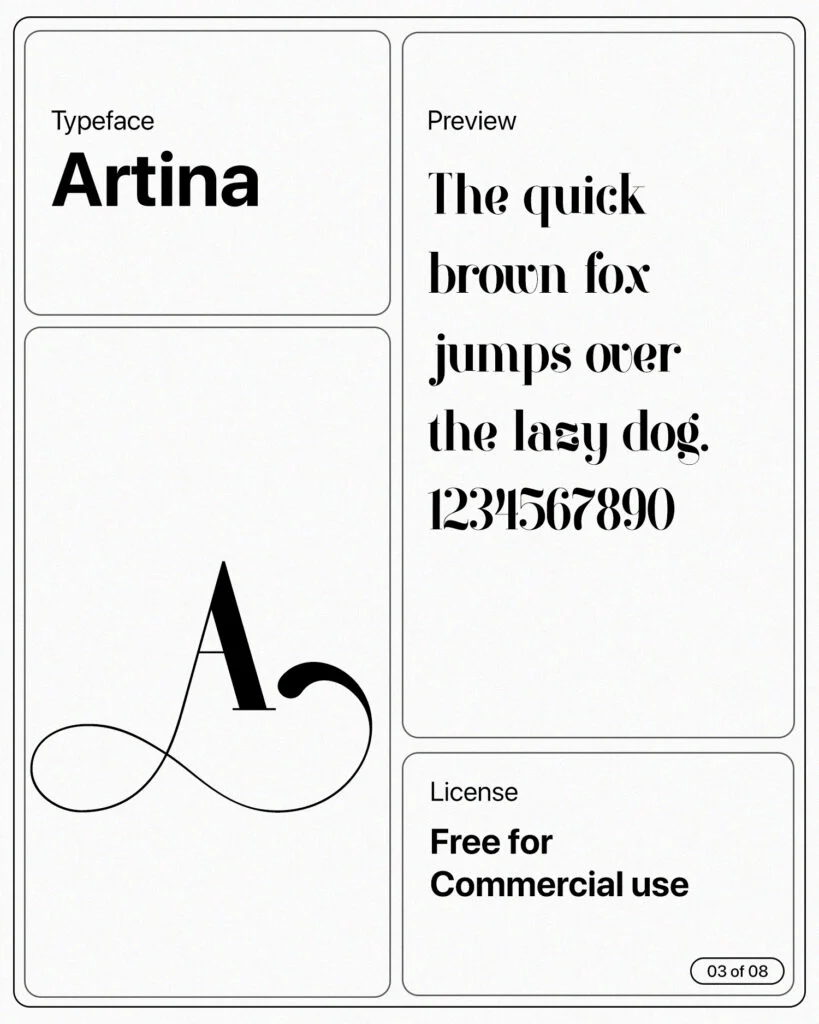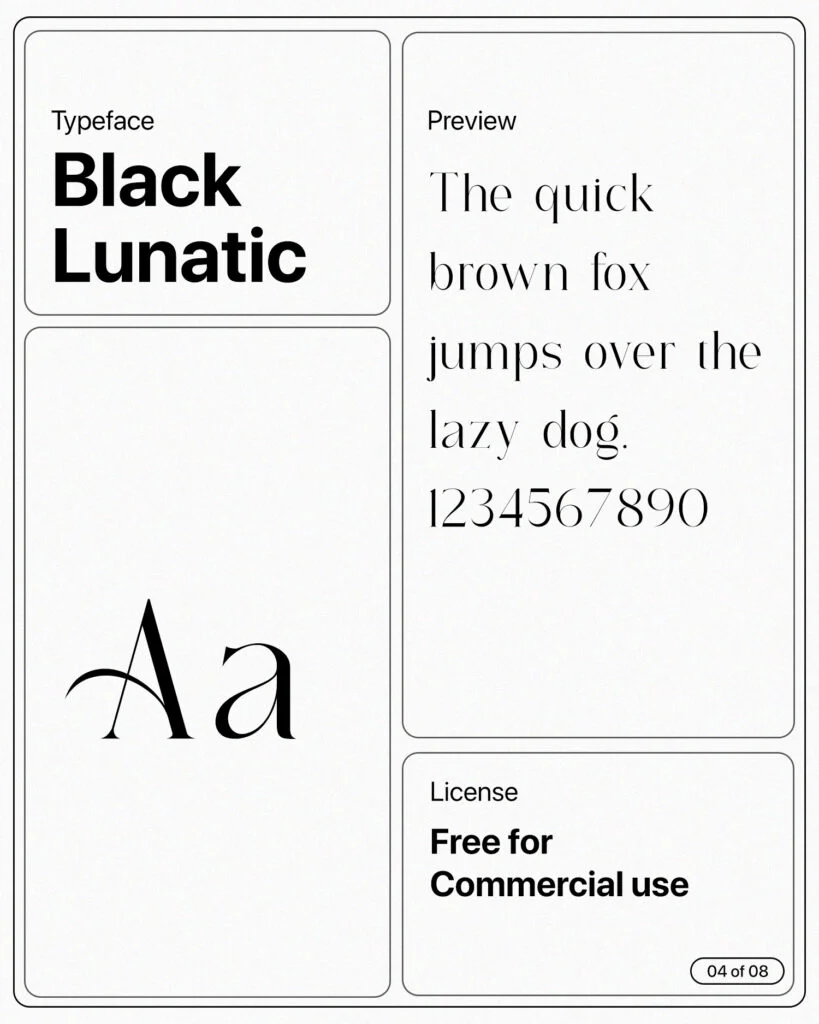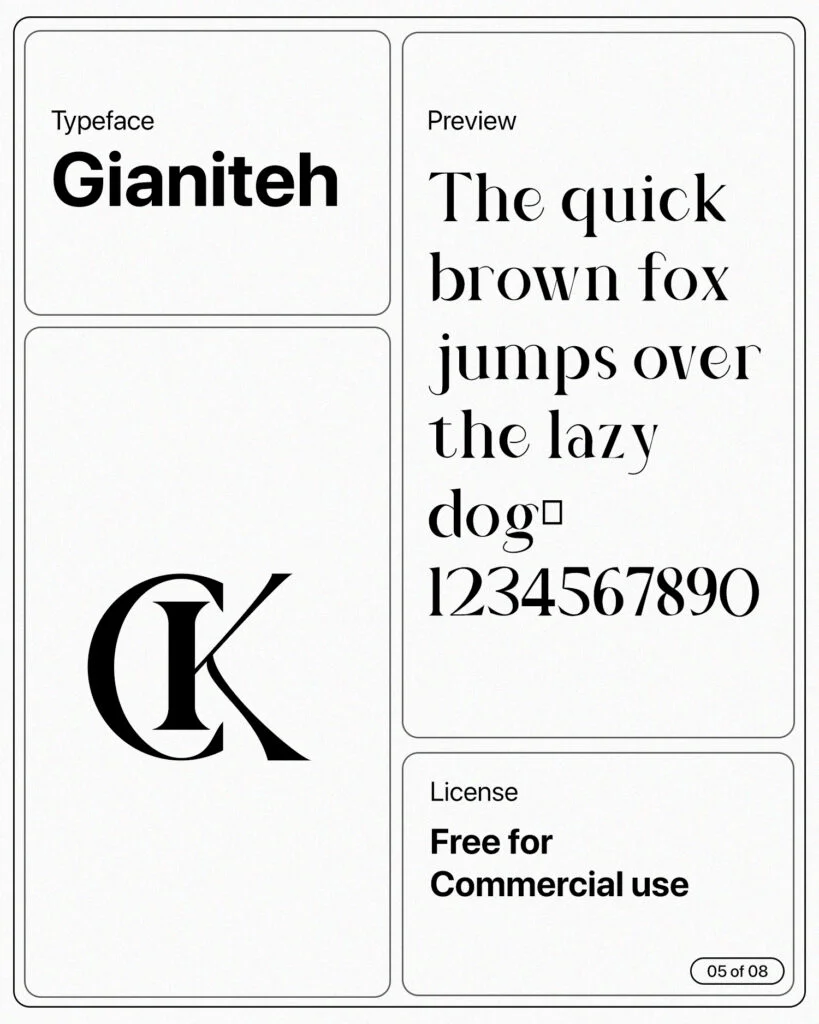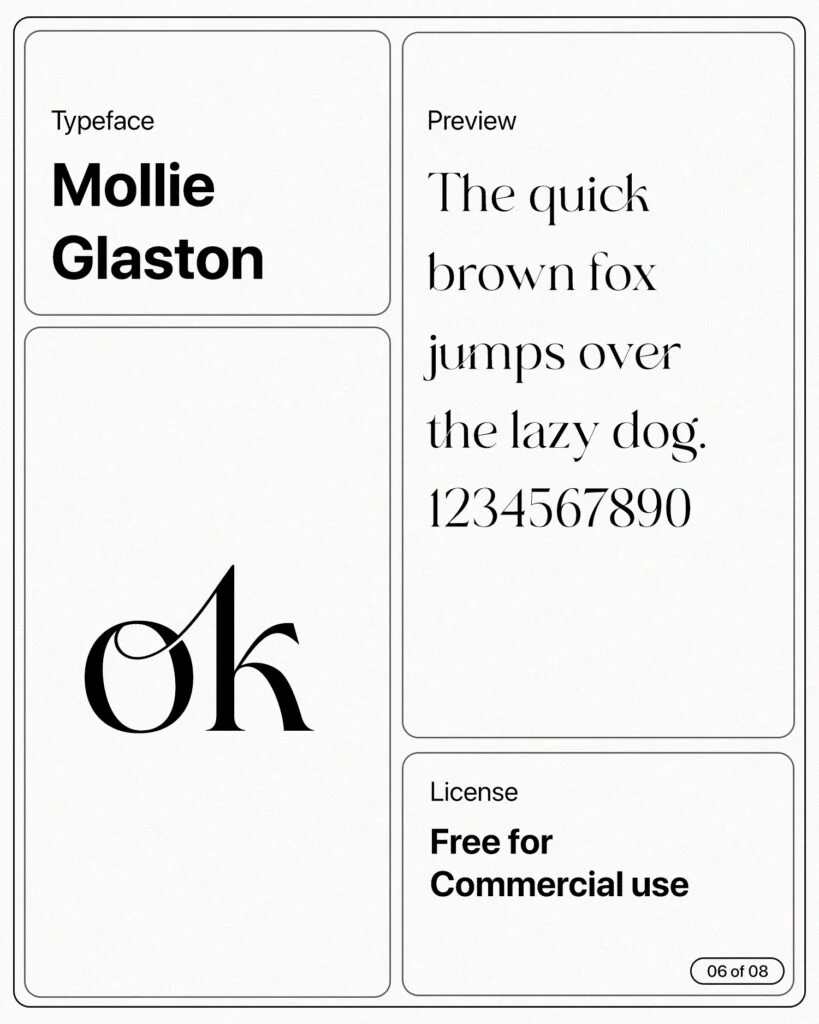
6 Best Wedding Fonts for Graphic Designer, Invitations and Social Media
Wedding fonts add a touch of nostalgia and romance to any graphic design project. Whether it’s classic calligraphy or modern script, these fonts make your wedding designs one of a kind.
From formal to playful, you can find the perfect font for any occasion. Let your creativity blossom with wedding fonts. All fonts are curated by Nitin
Aluniea
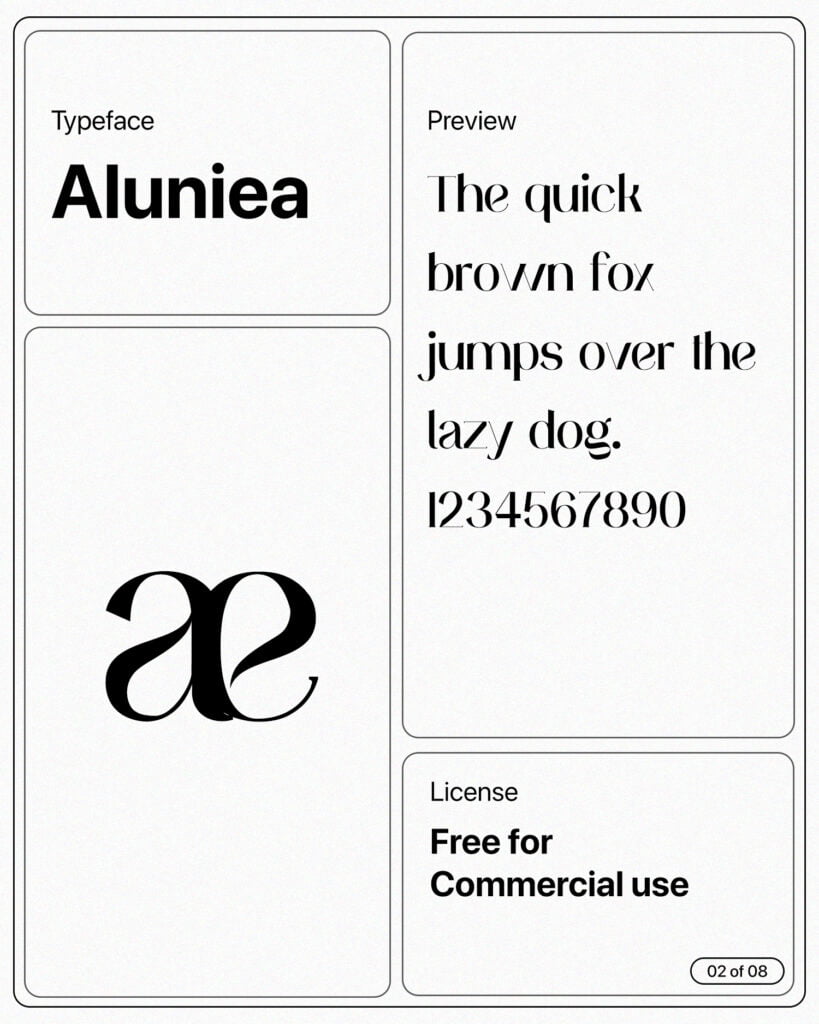
Artina
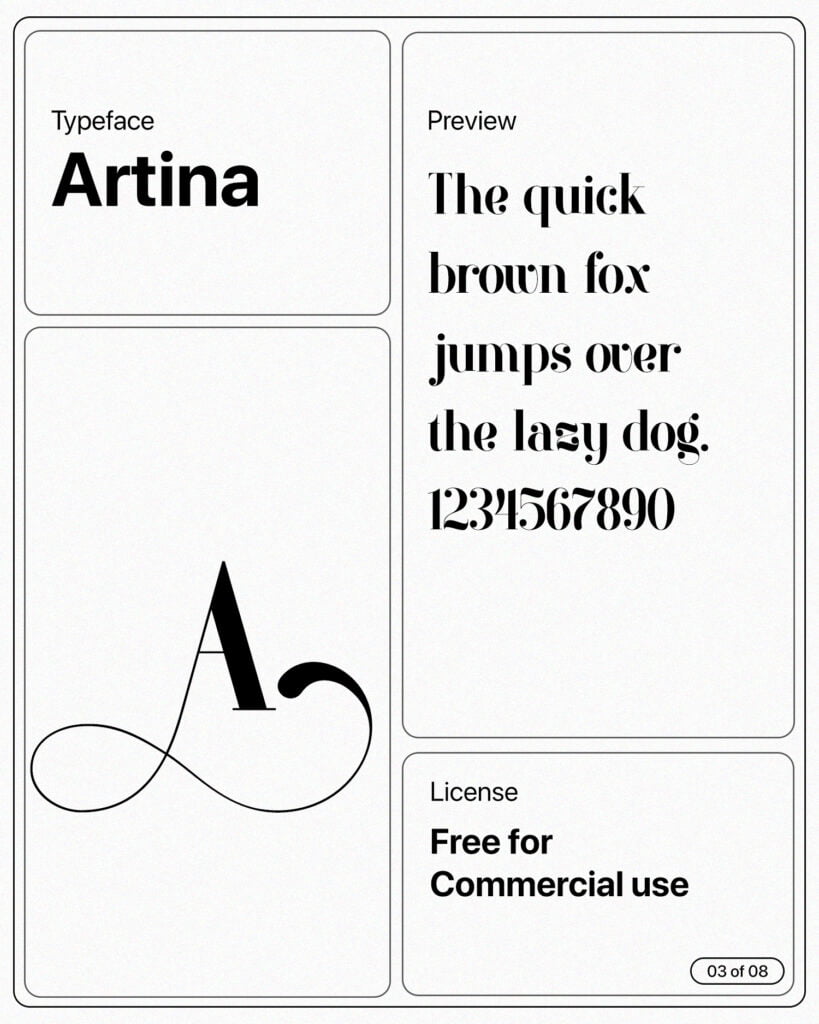
Black Lunatic
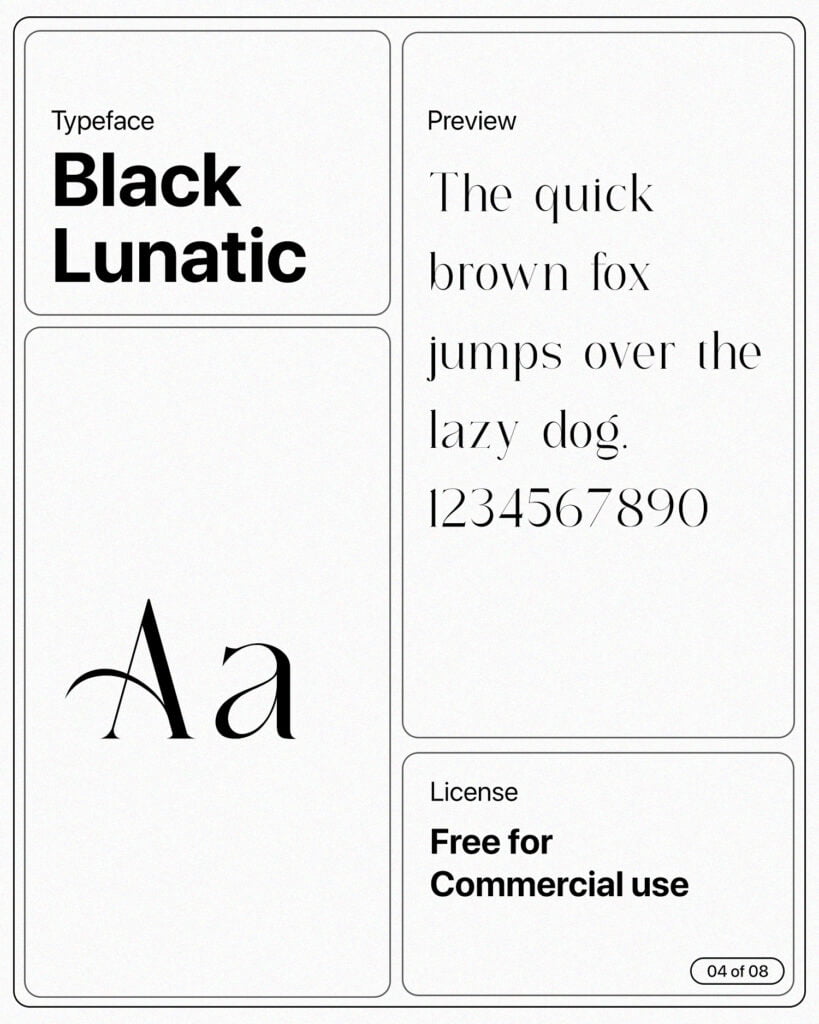
Gianiteh
Mollie Glaston
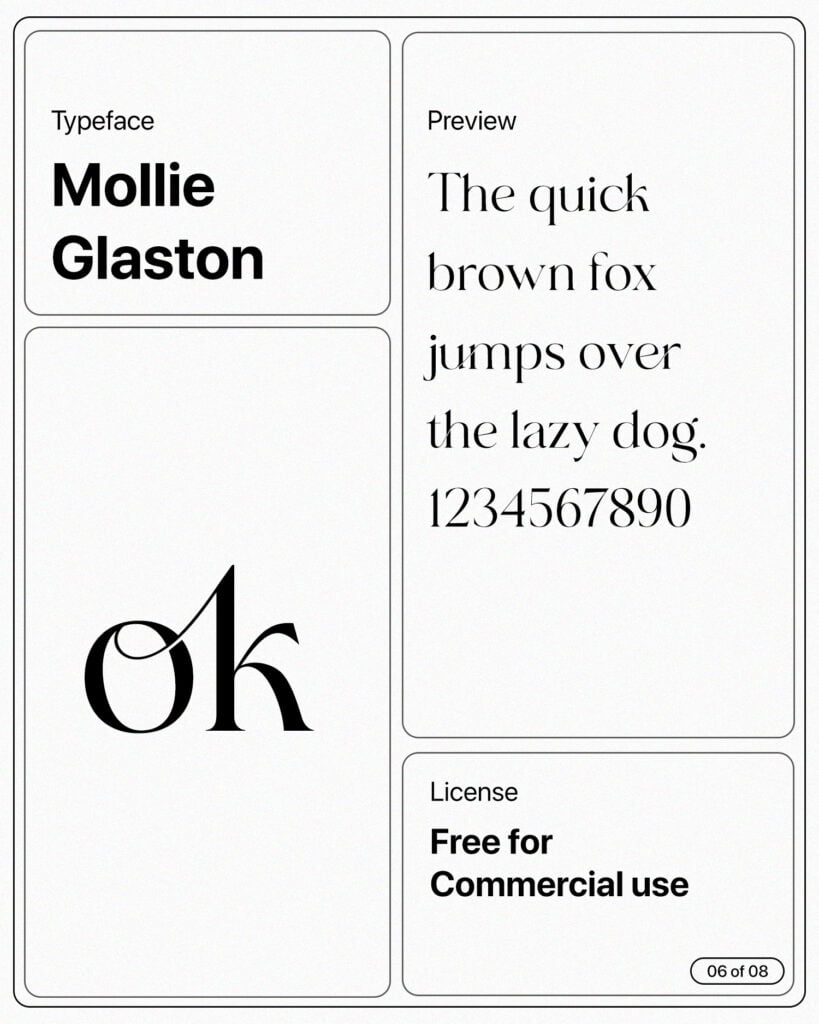
Qalisha Signature